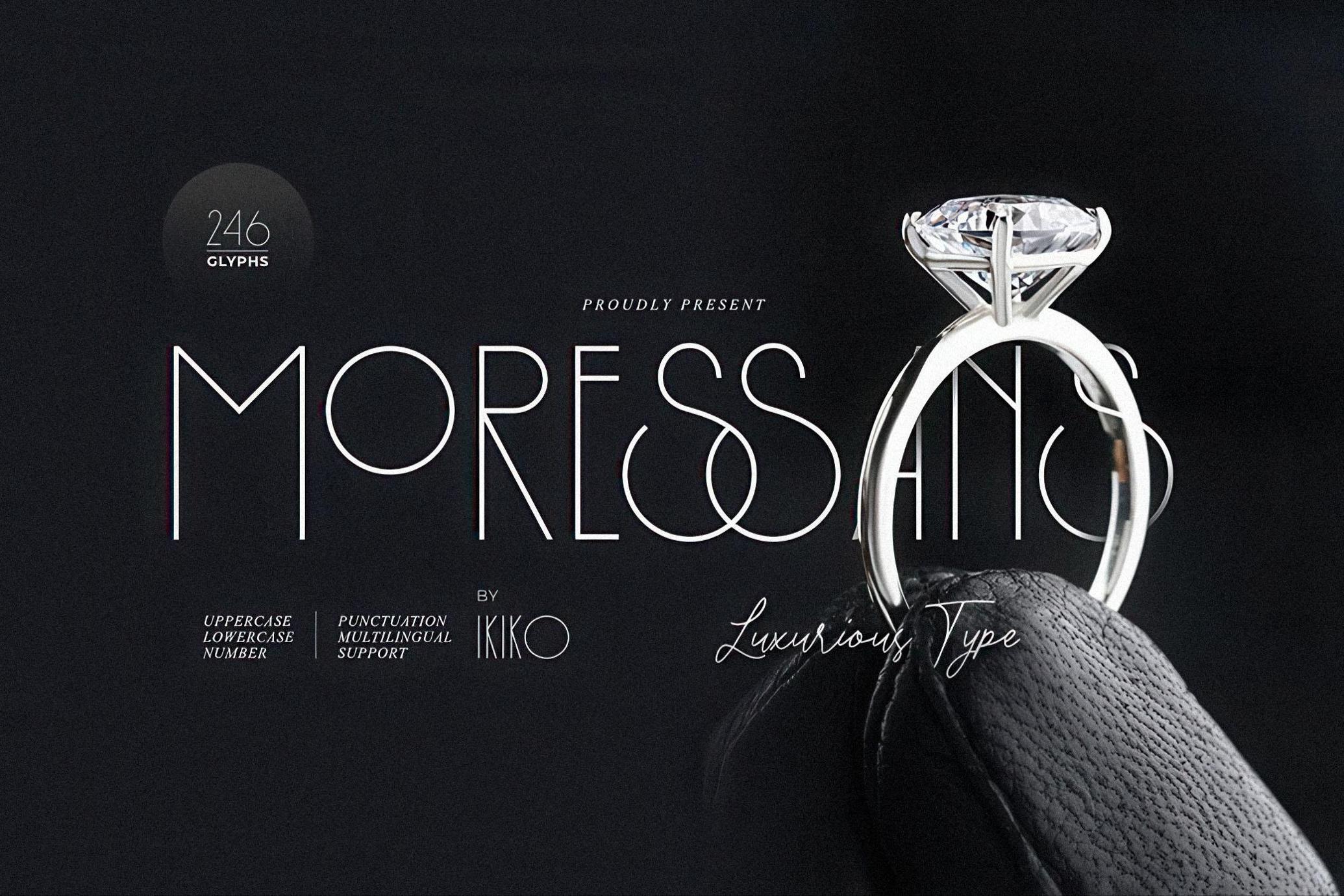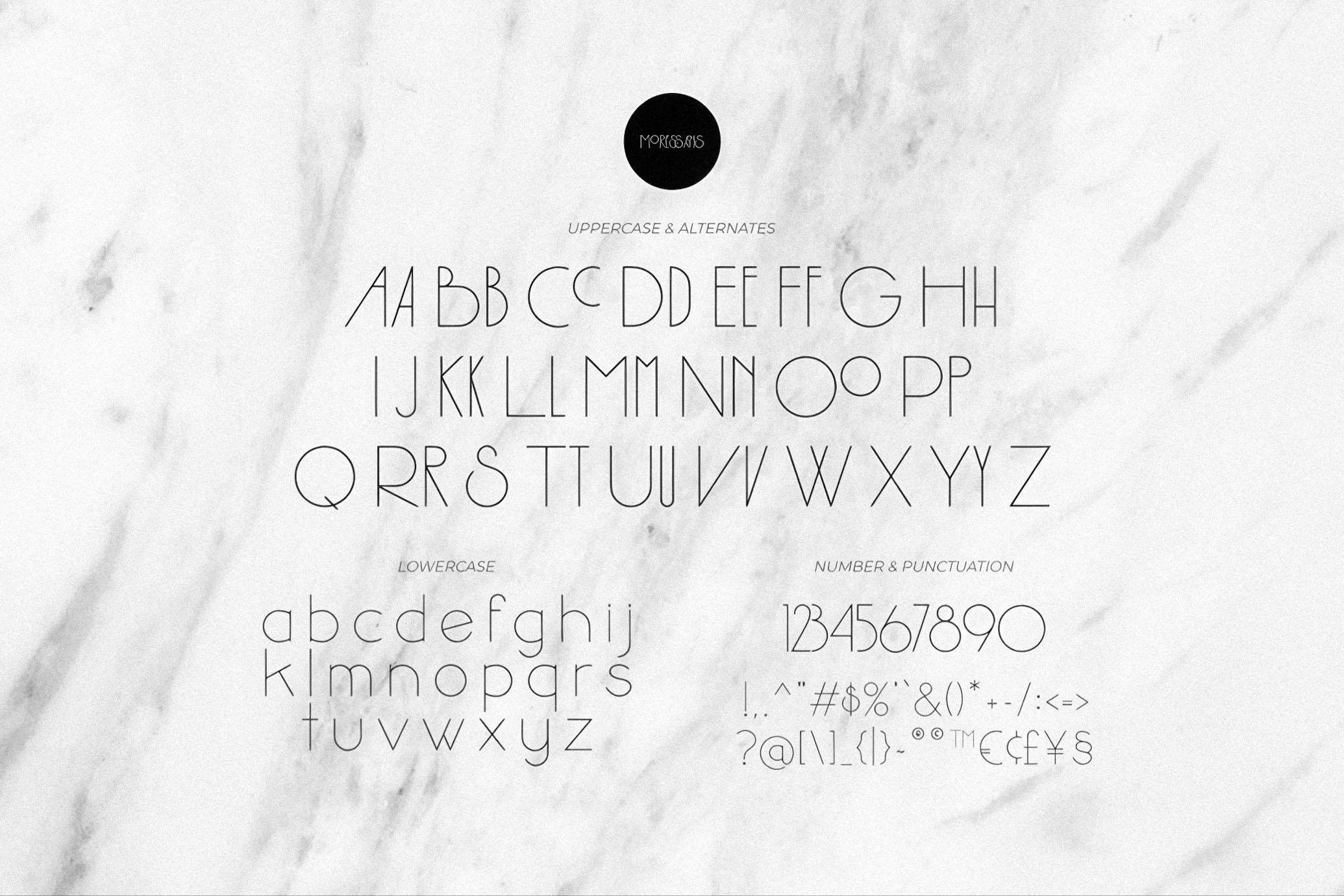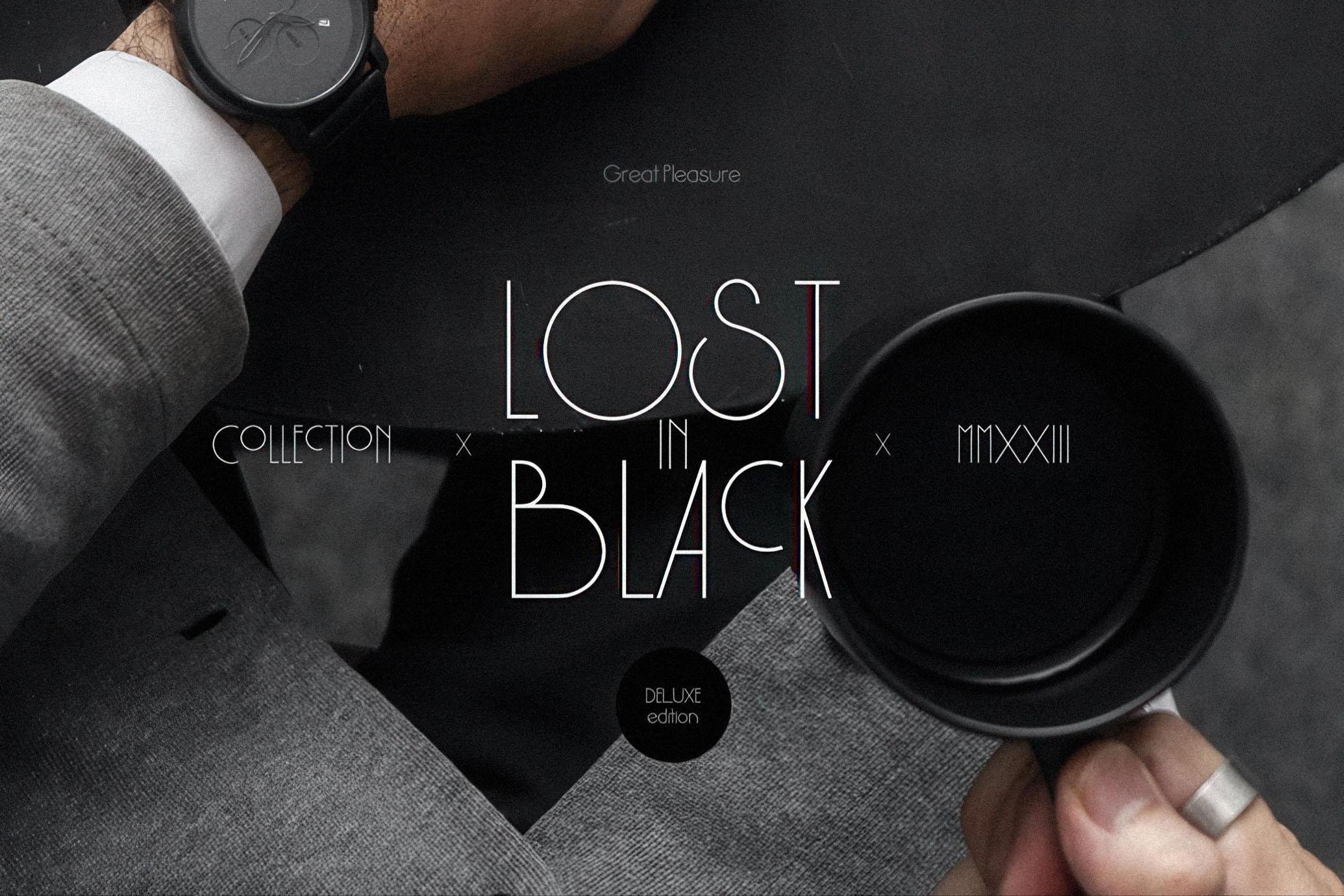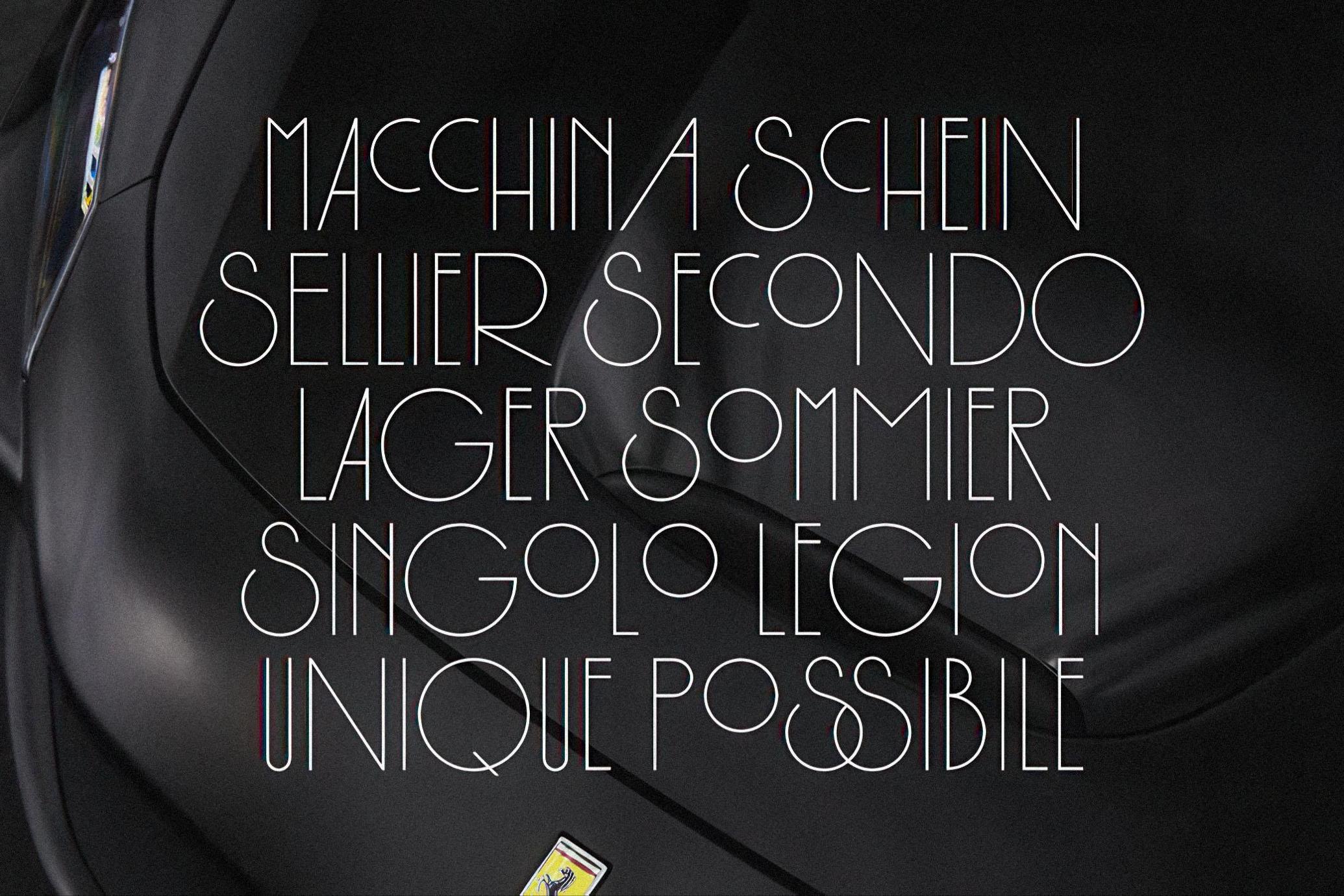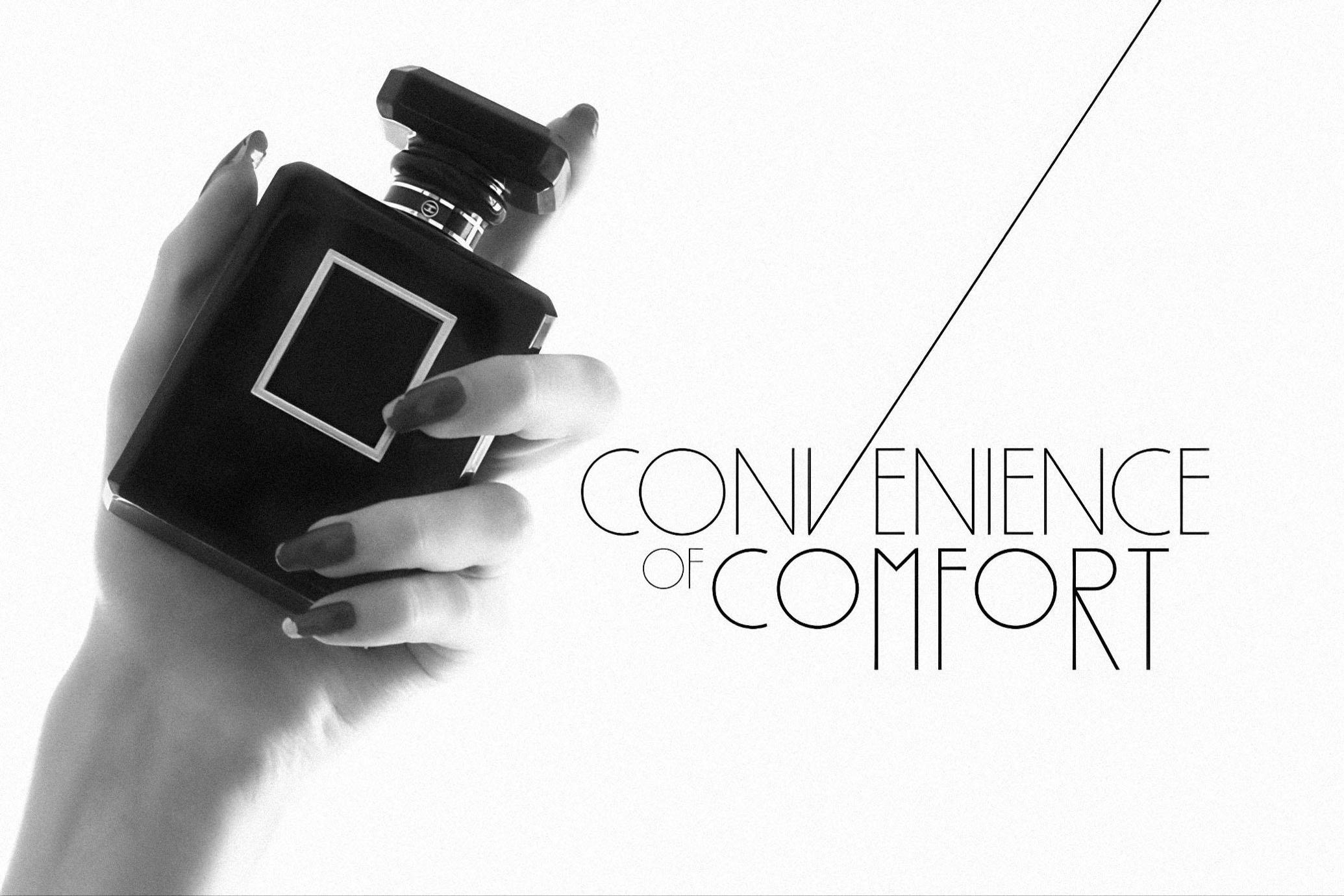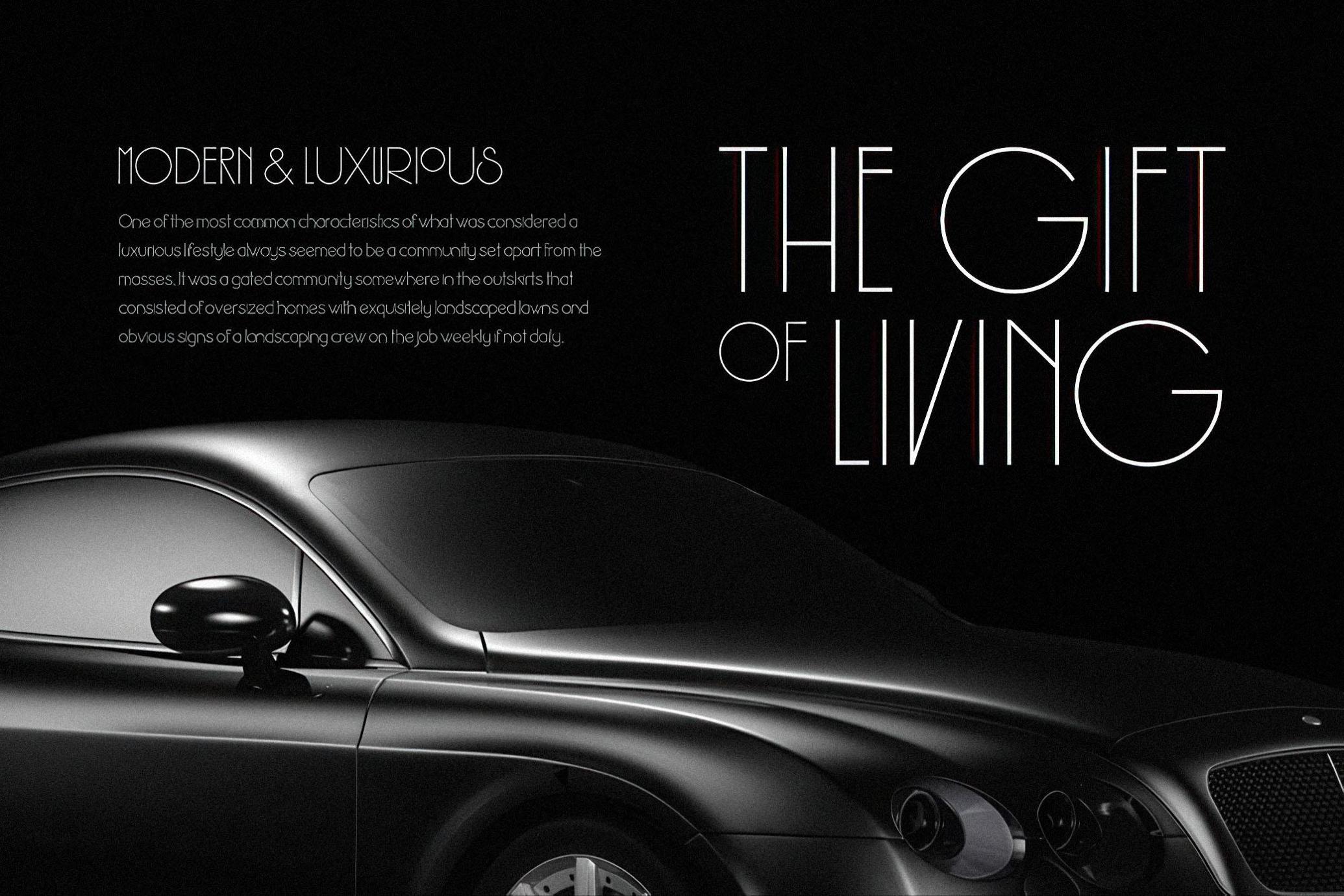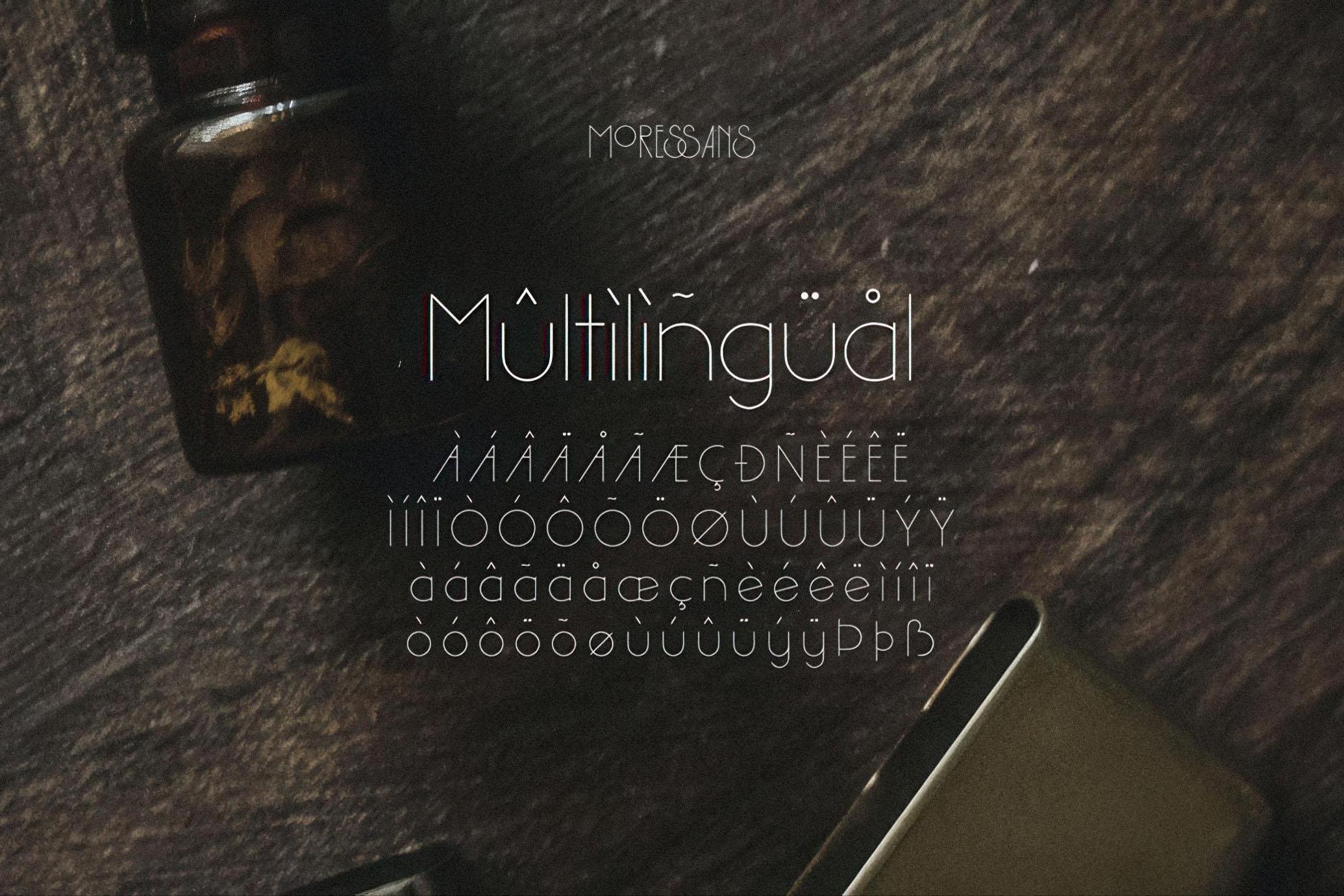
Moressans - Luxurious Font
Moressans
Moressans is a sans serif type with a thin and rounded shape. A simple font, with a thin size, adds to the impression of elegance and also fashionable too. This typeface is perfect for an elegant logo, branding, fashion brand, luxury brand, layout magazine, beauty product, packaging product, quotes, or simply as a stylish text overlay to any background image.
- Number & Punctuation
- Alternates